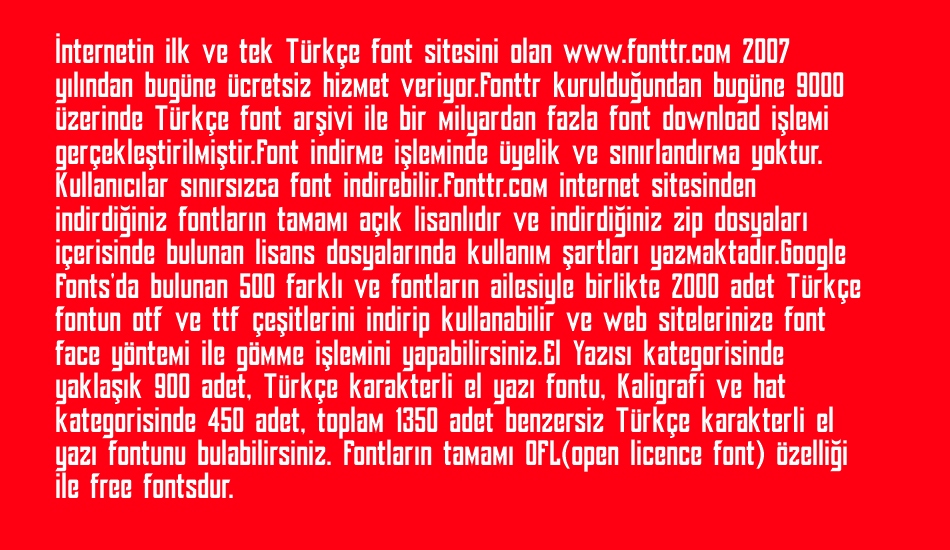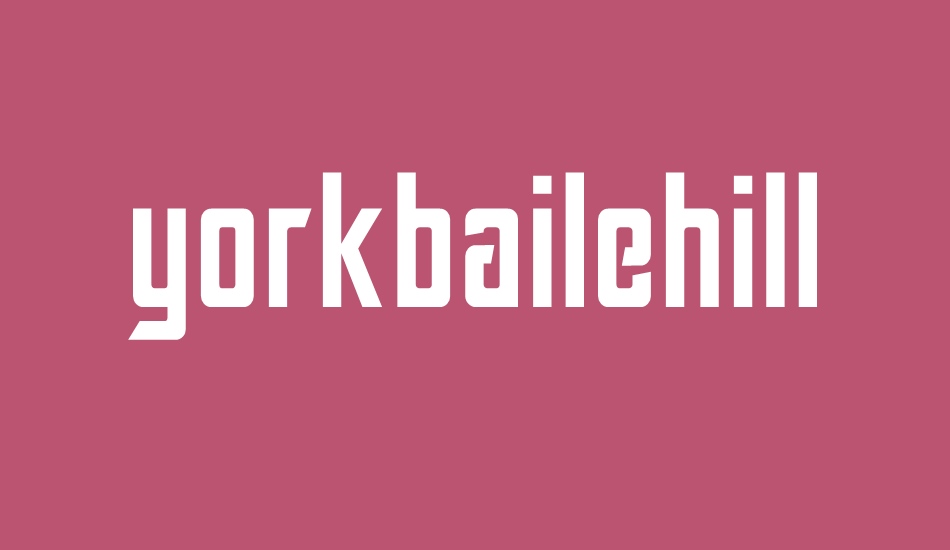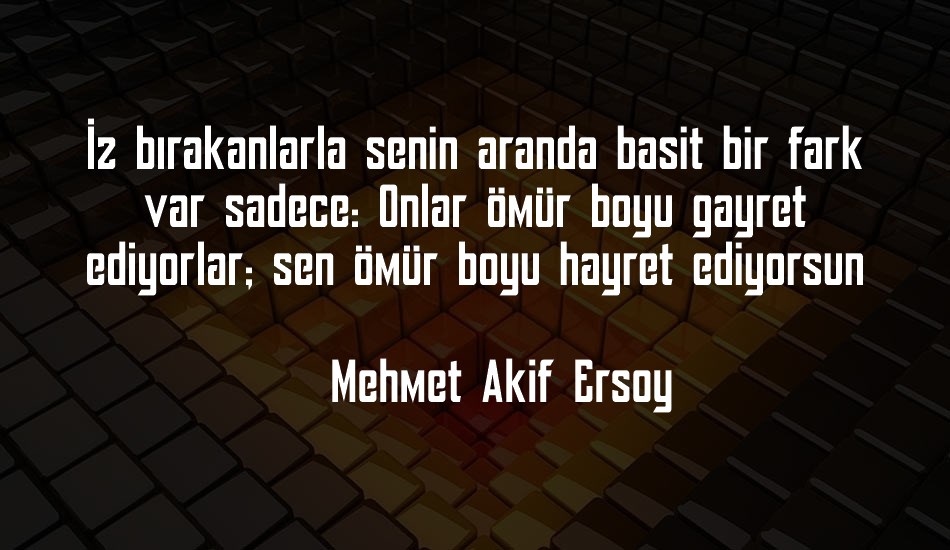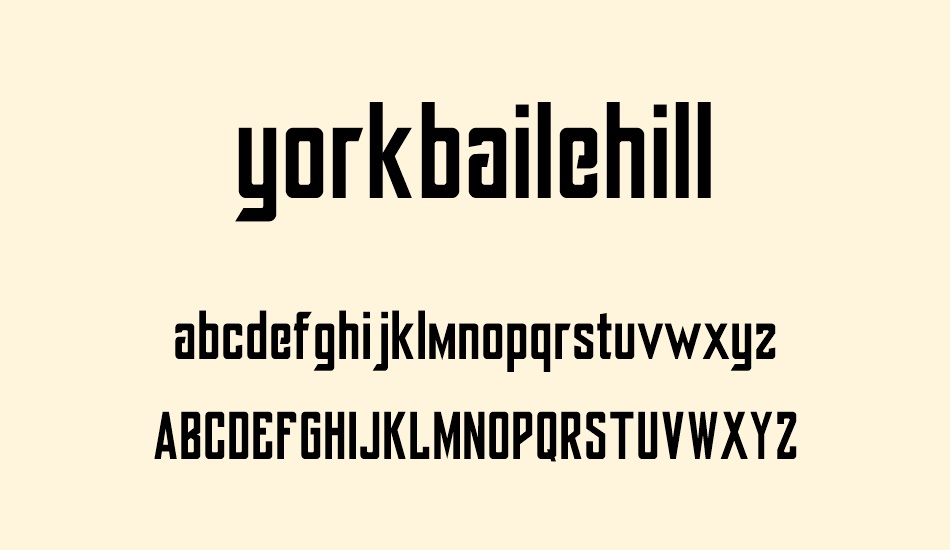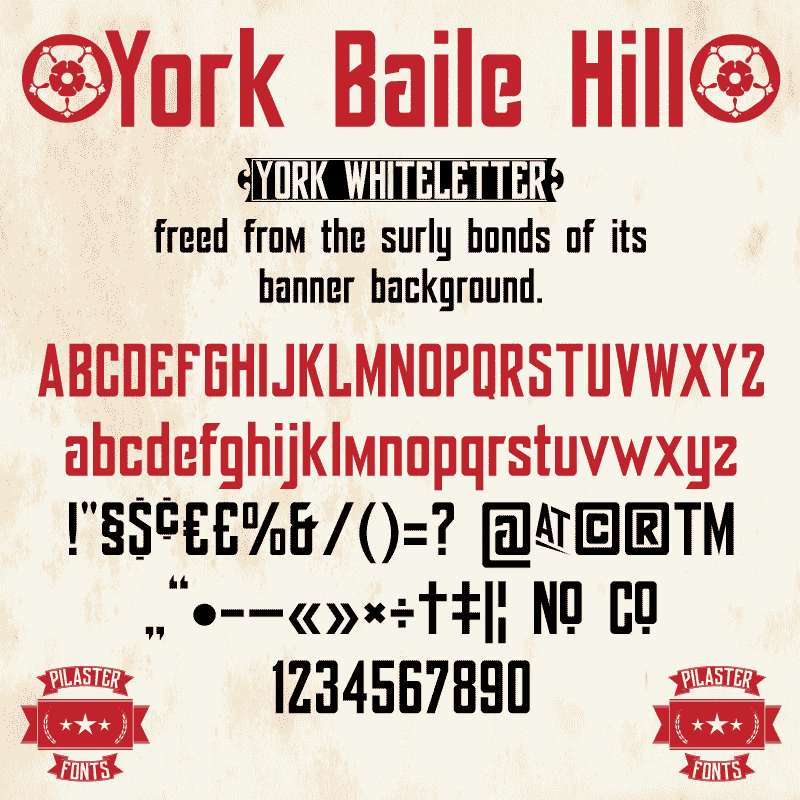
York Baile Hill font
York Baile Hill is the surprisingly popular York Whiteletter font, freed from the surly bonds of its banner background. With the addition of lowercase and extended language support, York Baile Hill is a versatile display face that hasn’t forgotten its wood type origins.